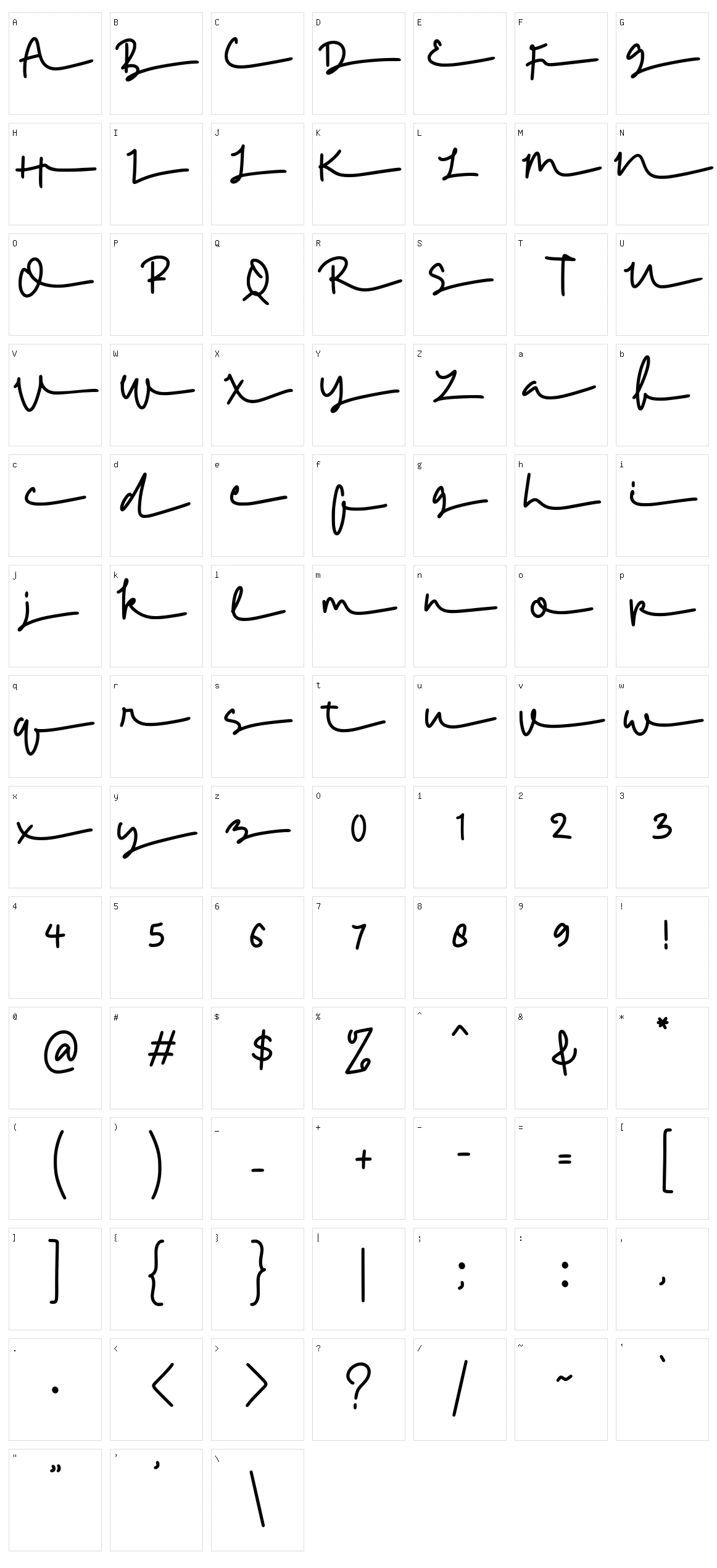
The free font Sweet Lovely Rainbow One is carefully designed by Lettersweet Studio, showcasing a thoughtful balance of creativity and usability and falls under the Script font style. When you download the ZIP file, it contains only 24.78 KB of font files, making it lightweight and quick to download. Please review the license details below to understand permitted usage and distribution rights. If license information is not available, we recommend using this font for personal projects only or contacting the author directly for commercial usage permissions.